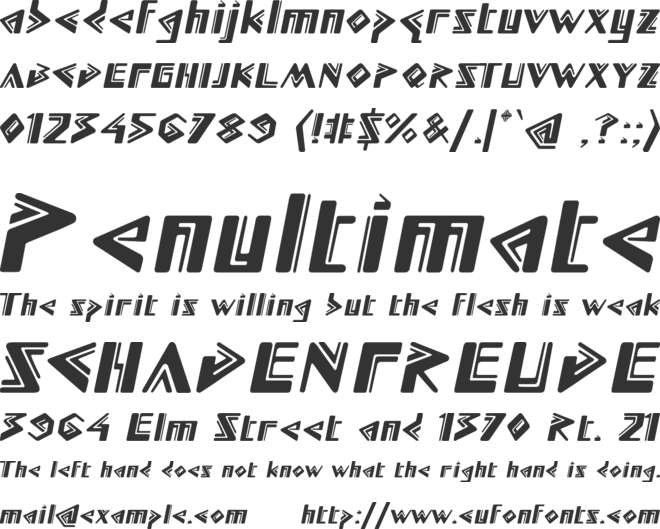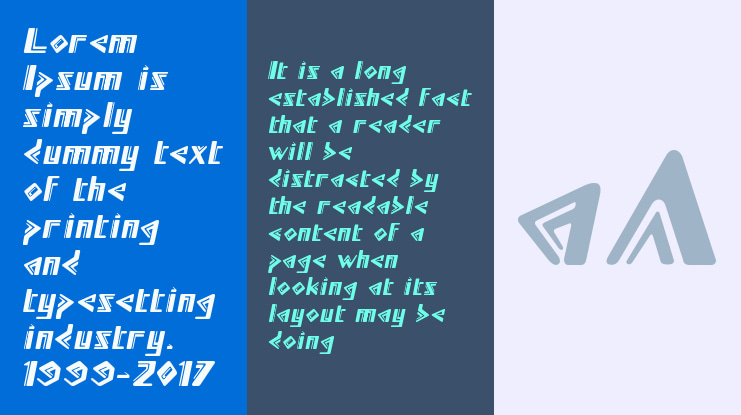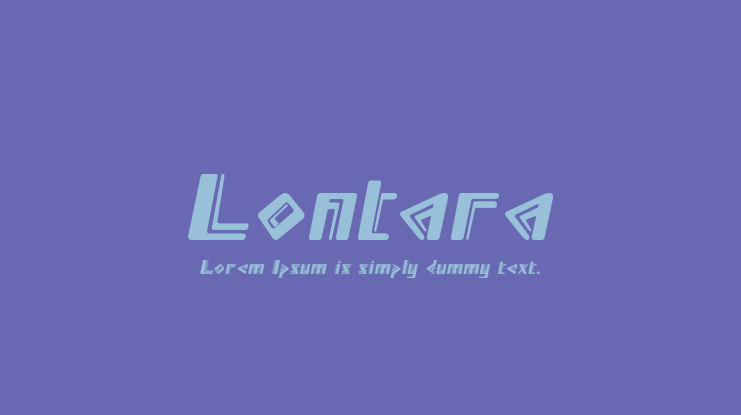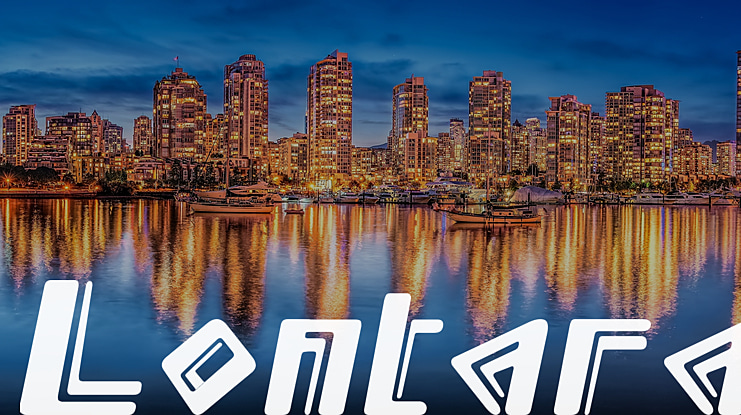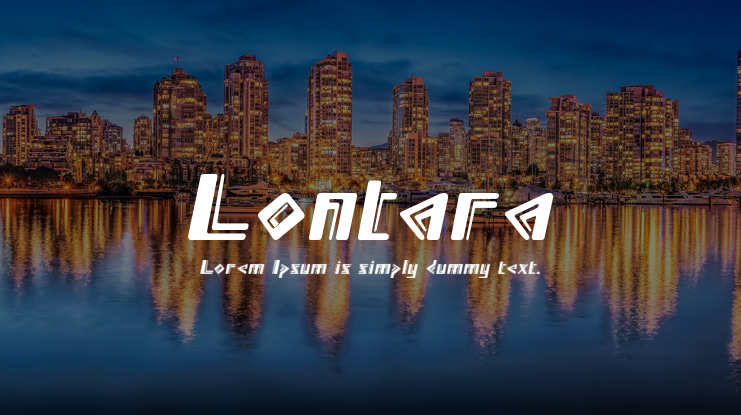
Lontara Font
Devin Chandra
This font is inspired by the Lontara script which is used for the local languages in makassar and bugis of sulawesi selatan,Indonesia.